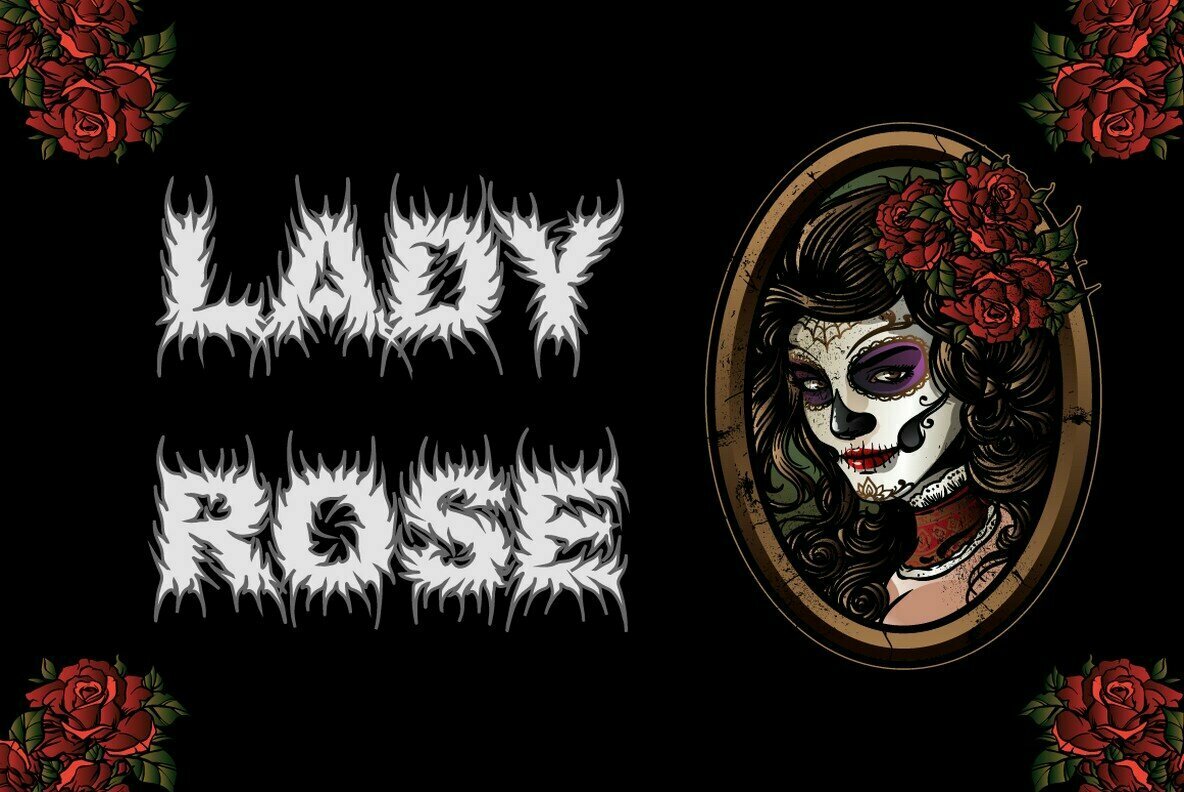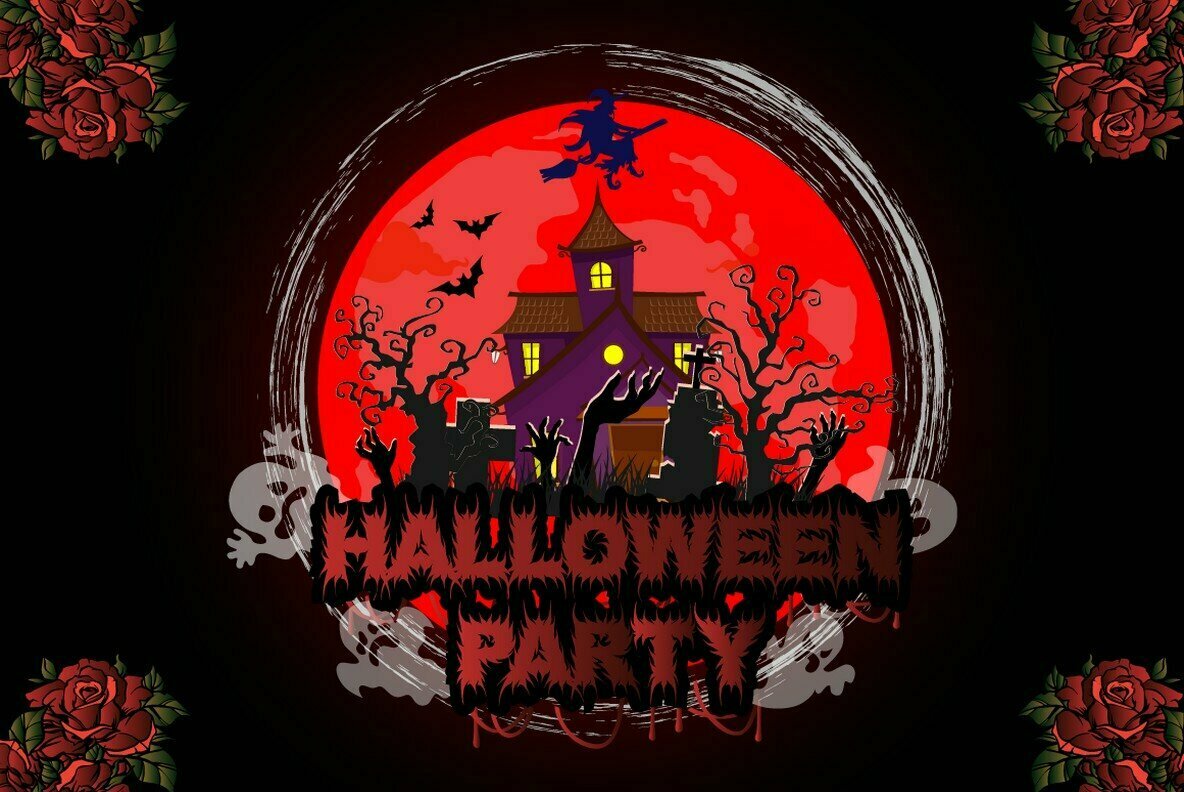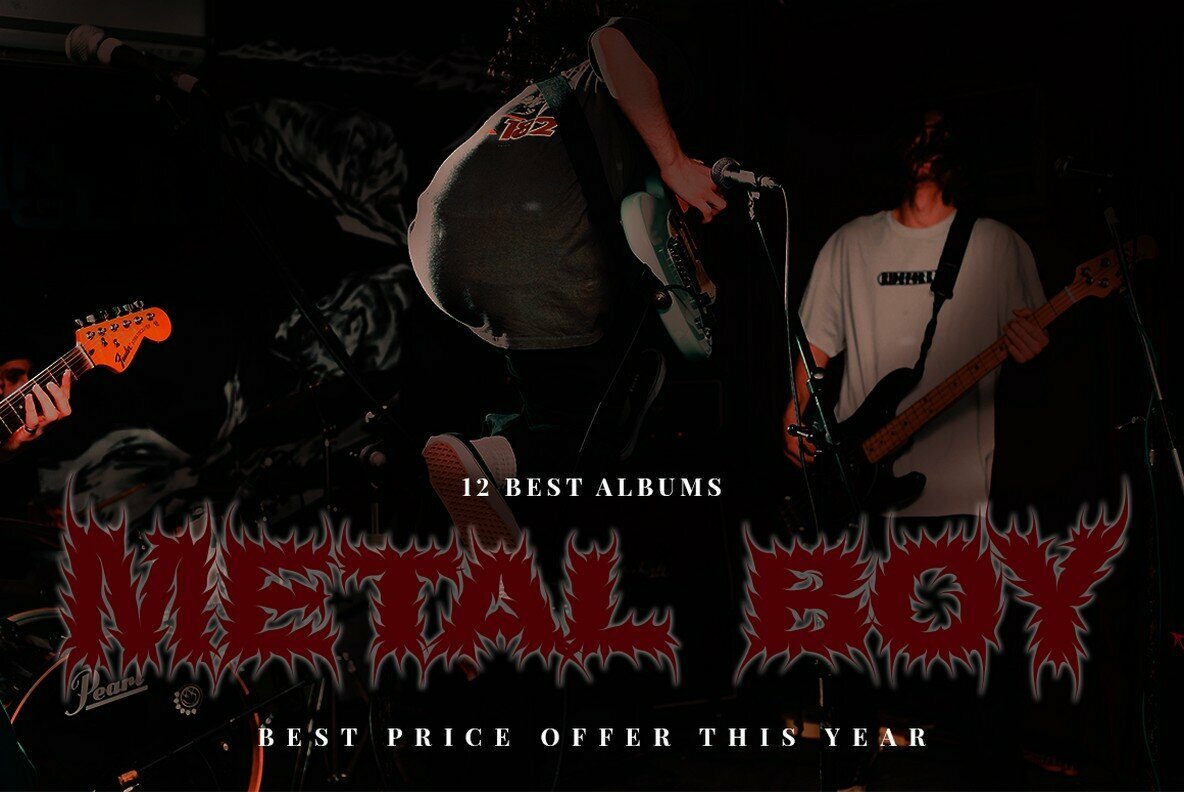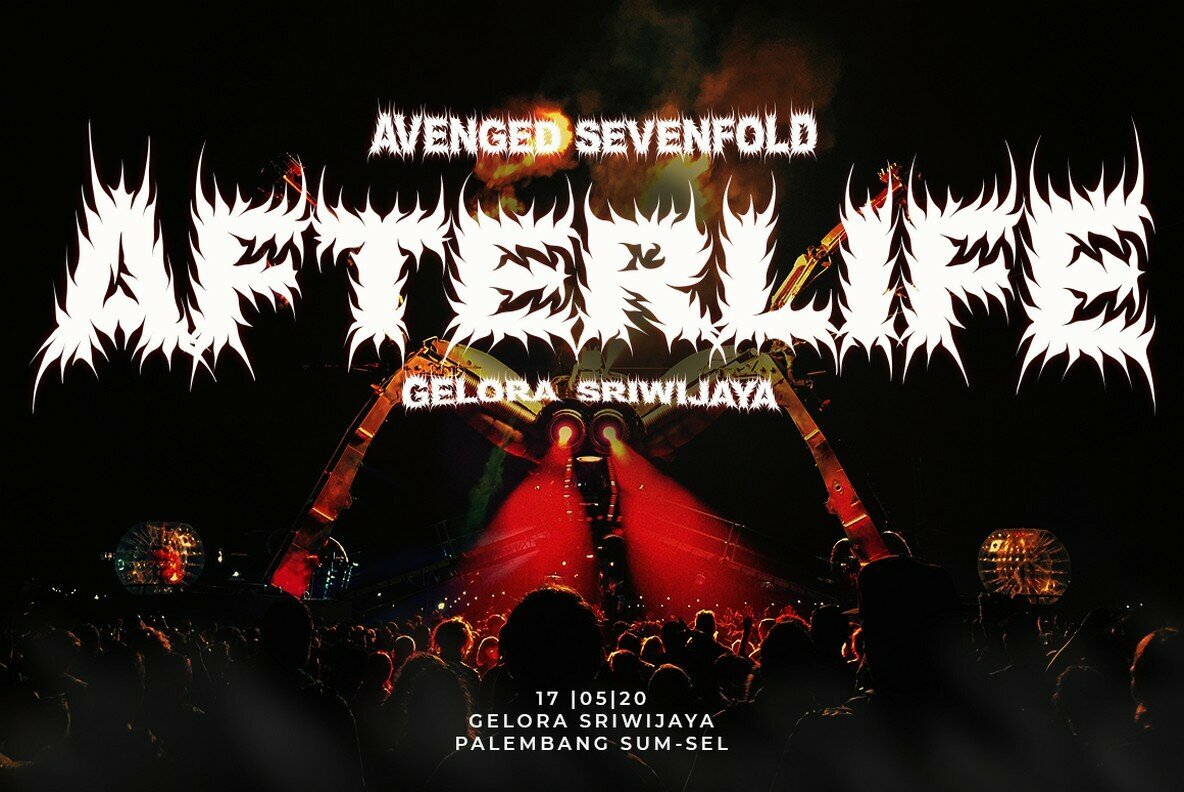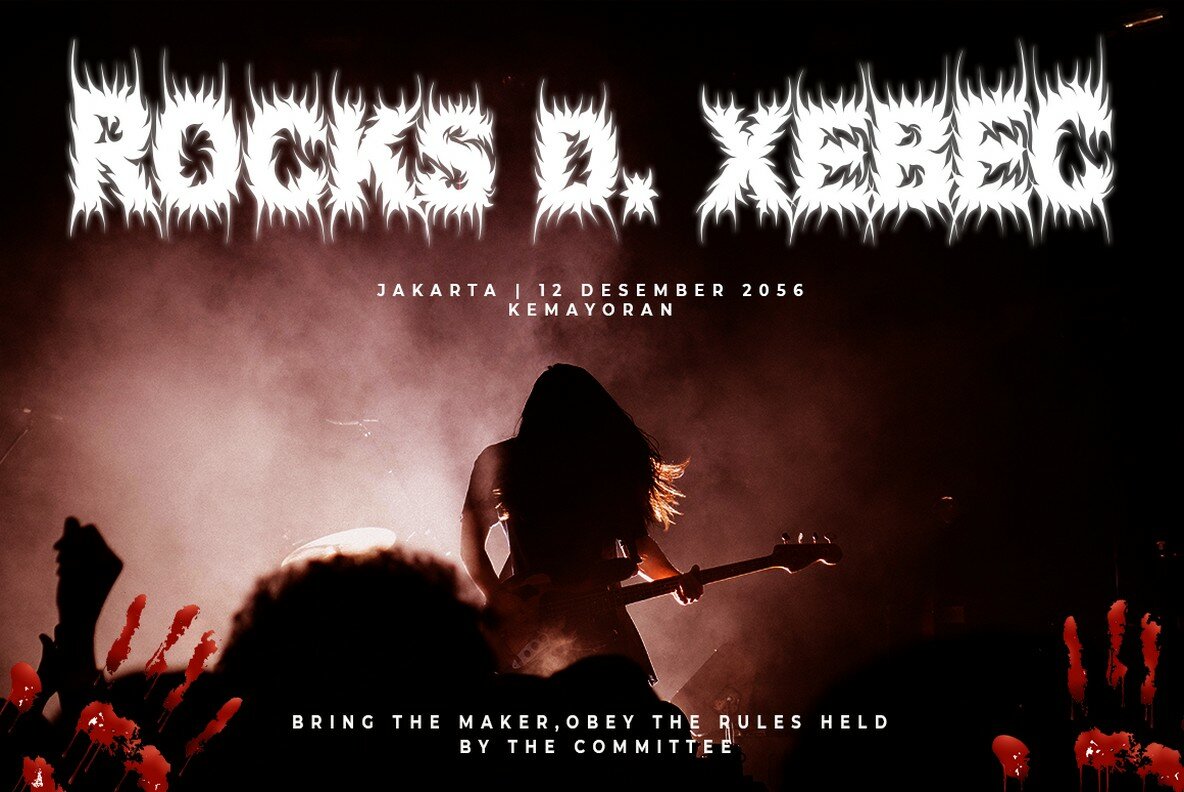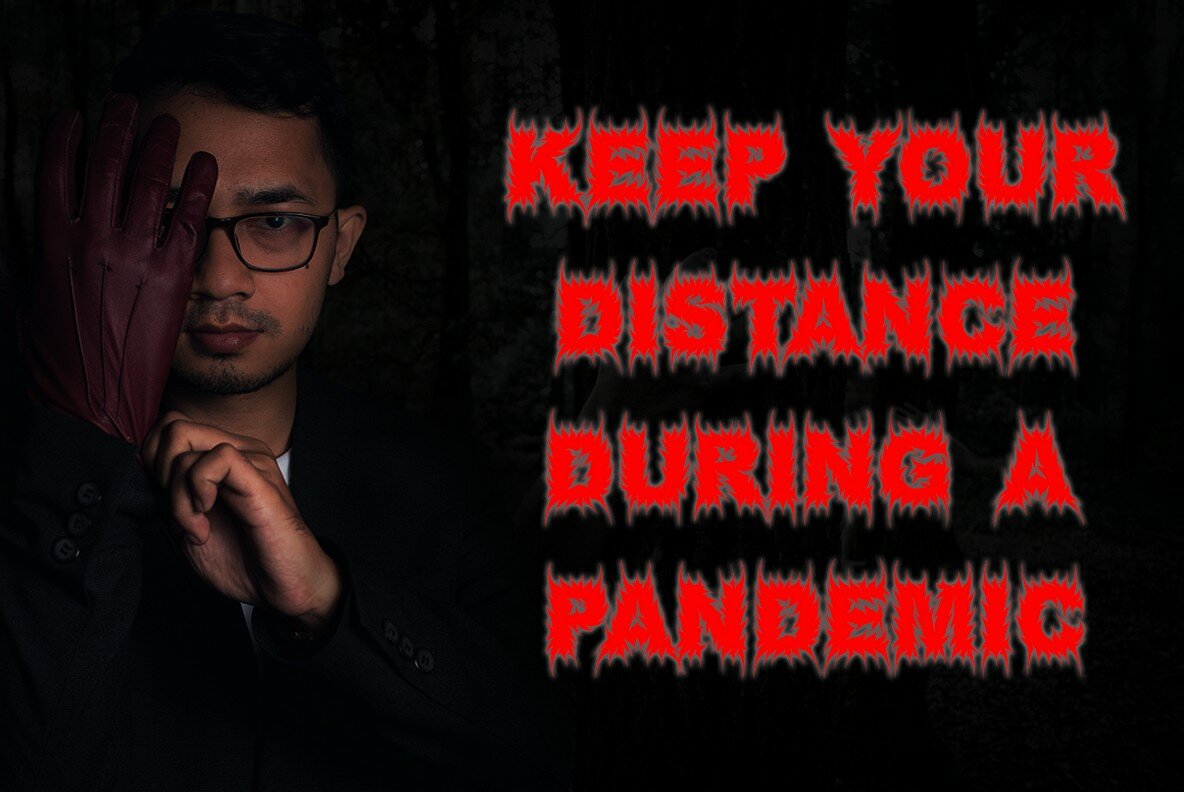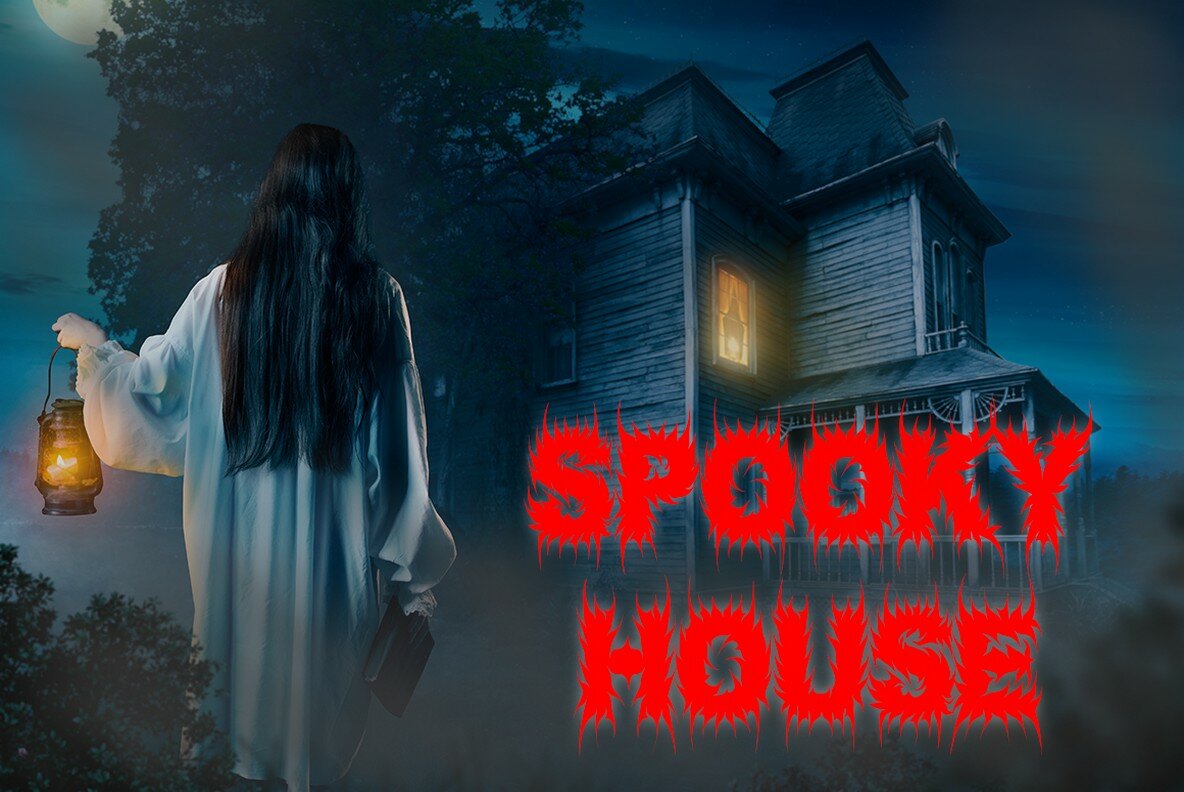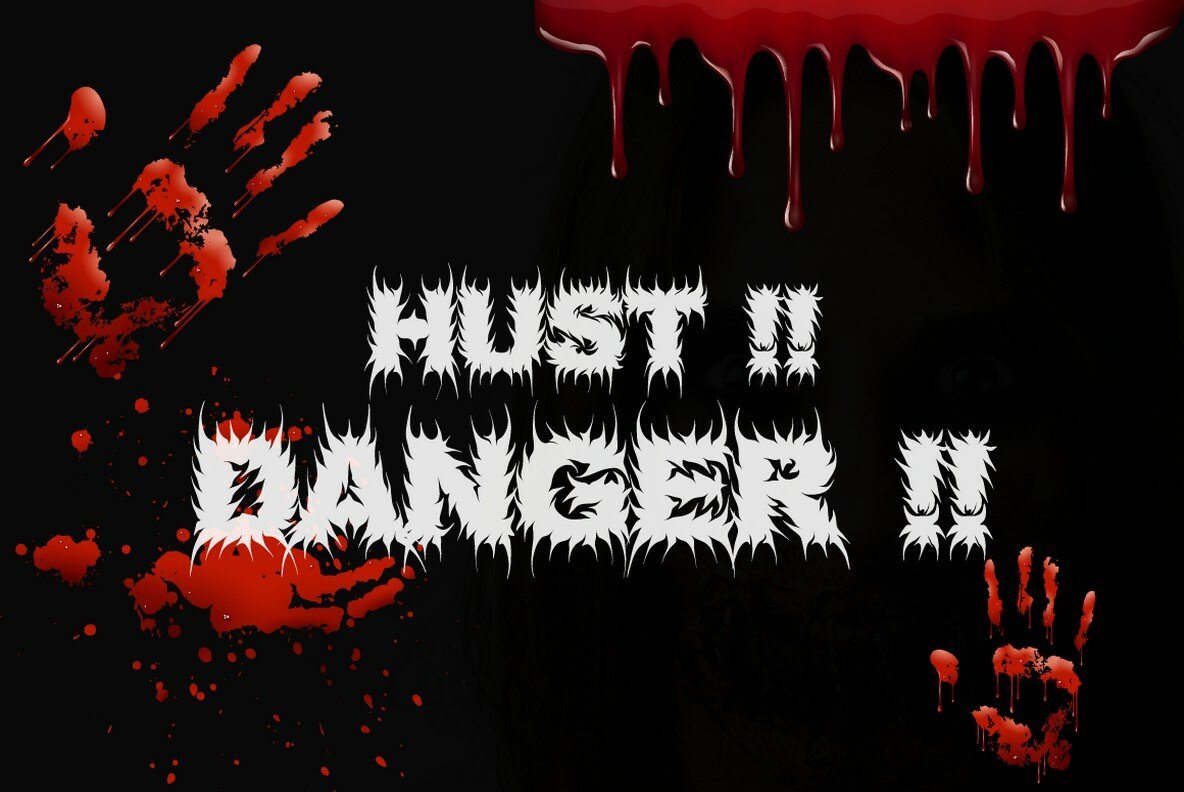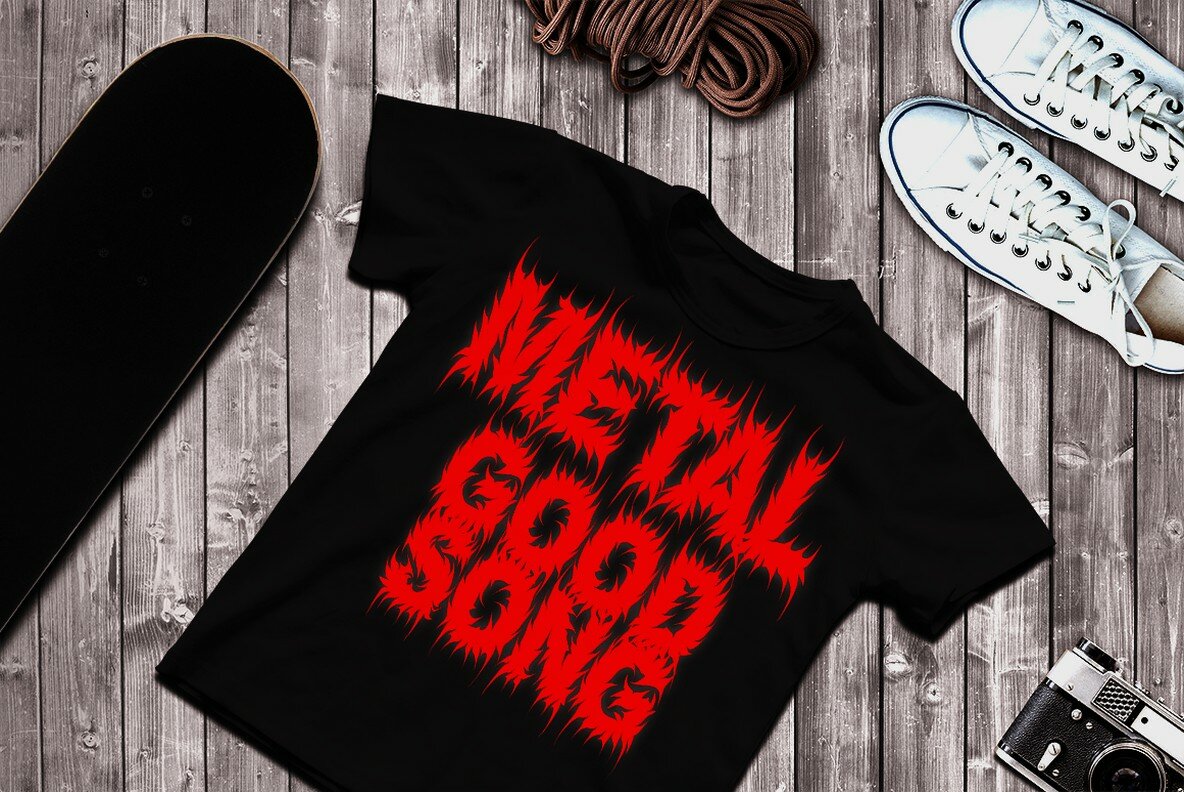
Nightcrow Font
NIGHTCROW
Designed for the bold and the daring, Nightcrow is a deathmetal display font that draws inspiration from the unique logotypes of underground and metal music bands. The font features distinct alternates with directional thorns for an edgy, expressive style. Despite its fierce appearance, the text remains highly readable, ensuring that your designs strike the right balance between style and clarity. Perfect for projects rooted in the hardcore music scene, Nightcrow is suited for death metal logos, album covers, and any design that demands a raw, powerful aesthetic. Its versatility extends to poster designs, clothing brands, and any creative endeavor with a deathmetal theme. Features: To unlock the full potential of Nightcrow’s alternate designs, use applications like Adobe Illustrator CS, Adobe Photoshop CC, Adobe Indesign, or Corel Draw that support OpenType features.Nightcrow: A Display Font Inspired by Metal Music